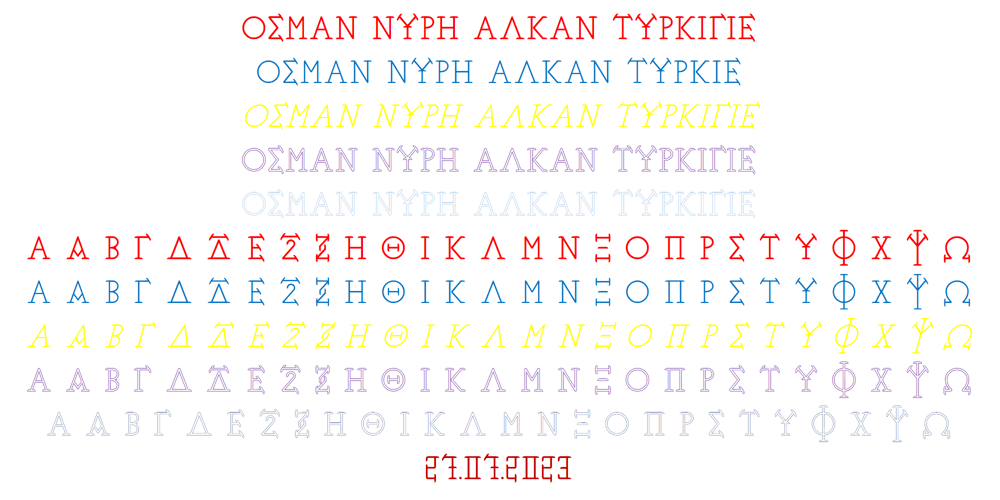
Ongunkan Greek Hollow Script Font Family was designed by Osman Nuri ALKAN and published by Runic World Tamgacı. Ongunkan Greek Hollow Script contains 1 styles and family package options. I added the hollow model of the font he developed by taking an example from the ancient Greek inscriptions found in Turkey to my fonts. Use it in good works.